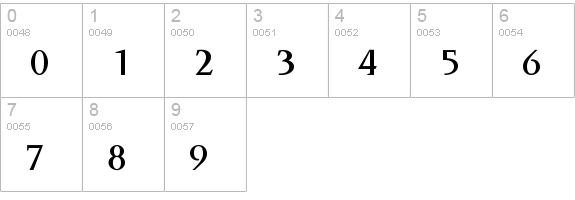
Runa Serif Std Medium is a balanced, medium-weight variant in the Runa typeface family \xE2\x80\x94 well suited to sub-headlines, navigation, and balanced editorial work.
Runa Serif Std Medium font is a versatile and elegant typeface that exudes a classic charm with a modern twist. Its medium weight strikes the perfect balance between readability and style, making it suitable for a wide range of design projects. The strong serifs and subtle curves give this font a unique personality that commands attention without being overpowering. What sets Runa Serif Std Medium font apart is that it is not only beautifully crafted, but it is also free to download at FontsMarket.com. This means that designers and creatives can easily access this high-quality font without any cost, making it a valuable addition to any font library. Whether you are working on branding, editorial design, or web projects, Runa Serif Std Medium font offers a reliable and sophisticated option that is sure to elevate your designs.